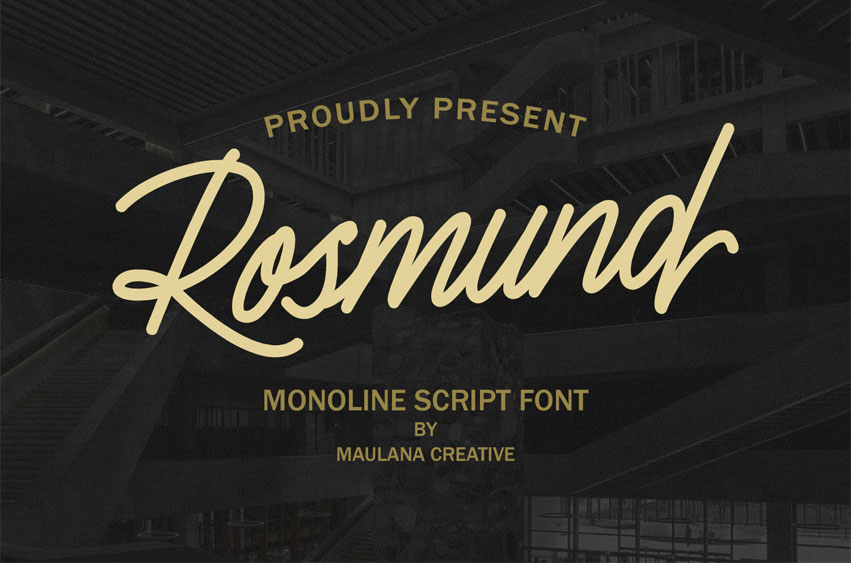
Rosmund Font is a casual signature script monoline typeface featuring fun characters with ligatures and alternate styles, providing you with extra creative options. Laustera Font is an excellent choice for logo design, social media posts, movie titles, book titles, and both short and long text. It also works well as a secondary text font when paired with a script or serif typeface. Create stunning designs with Laustera Font!